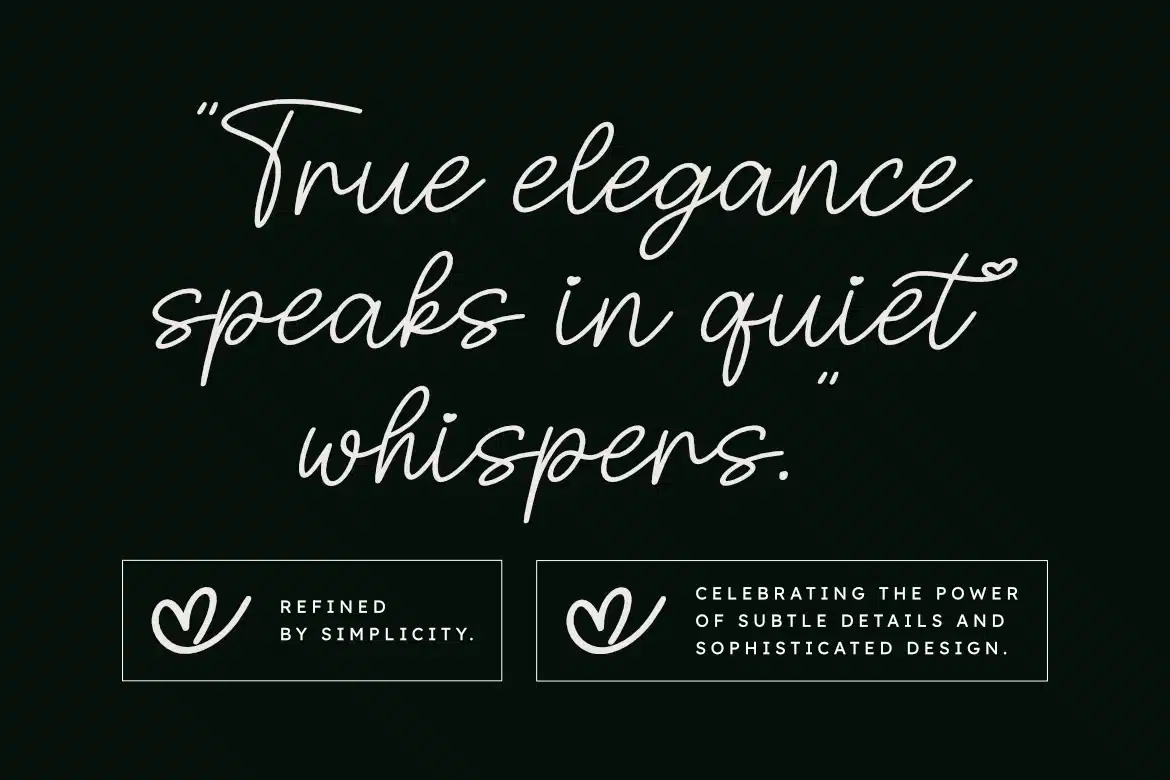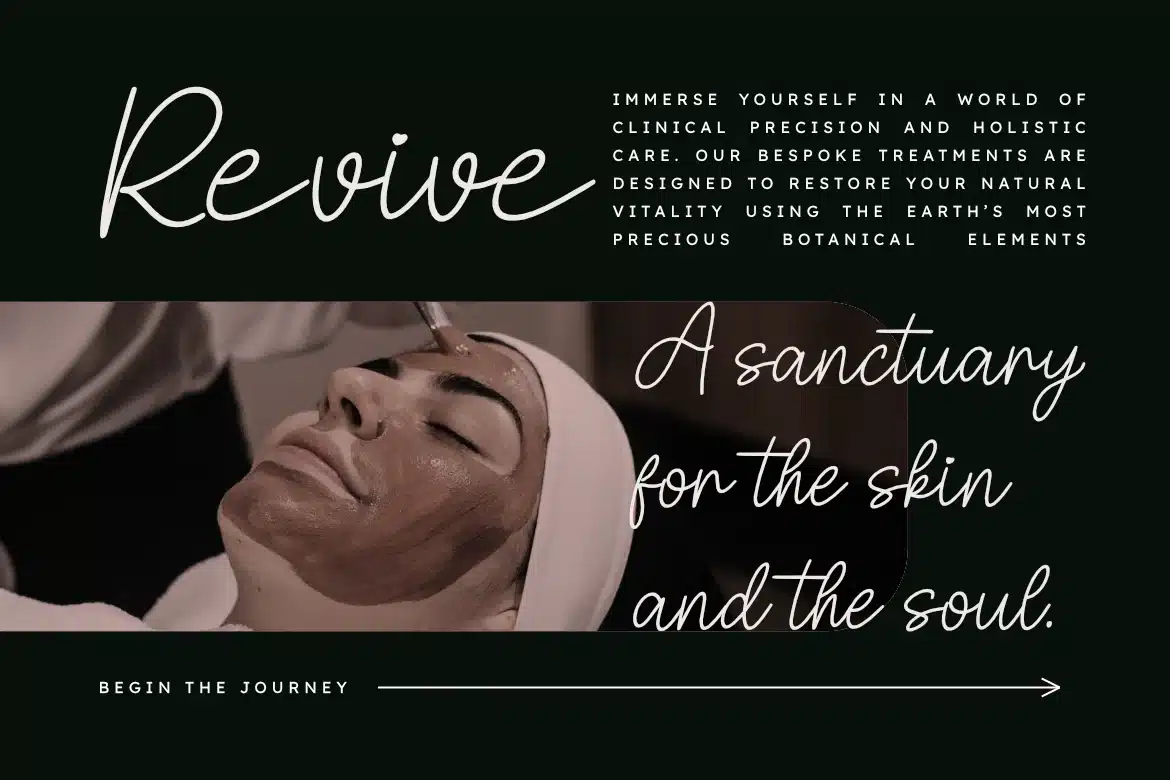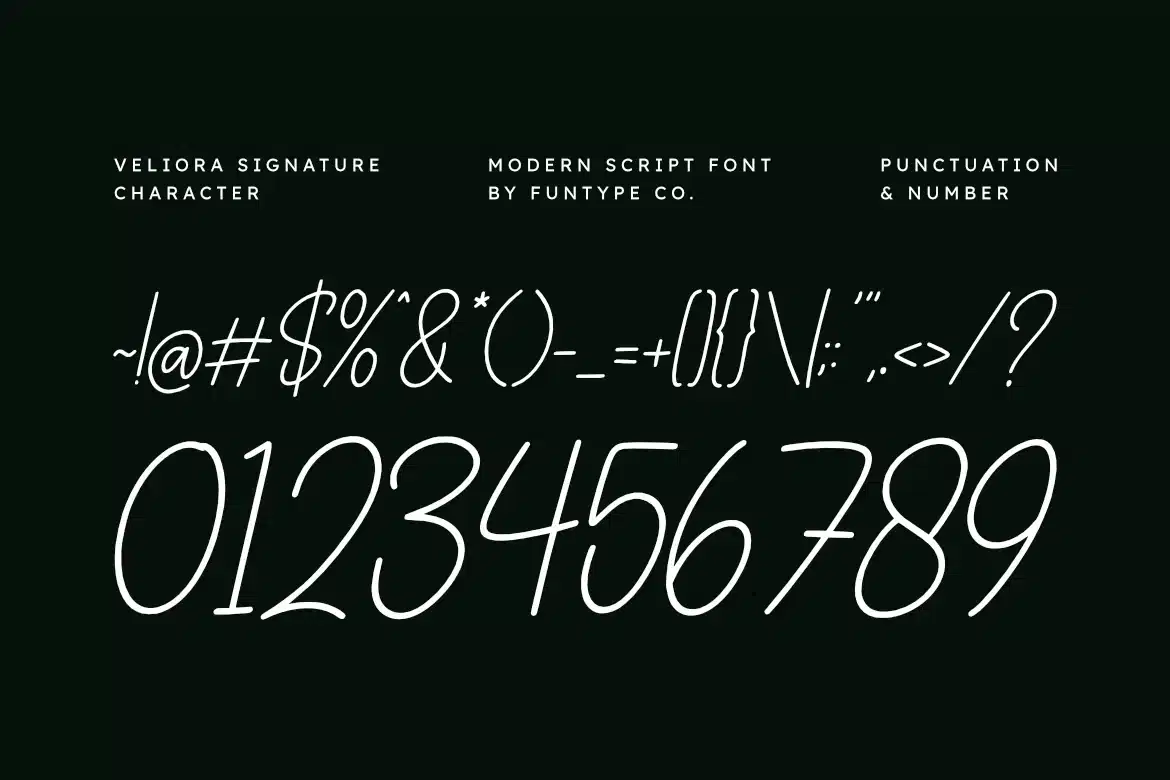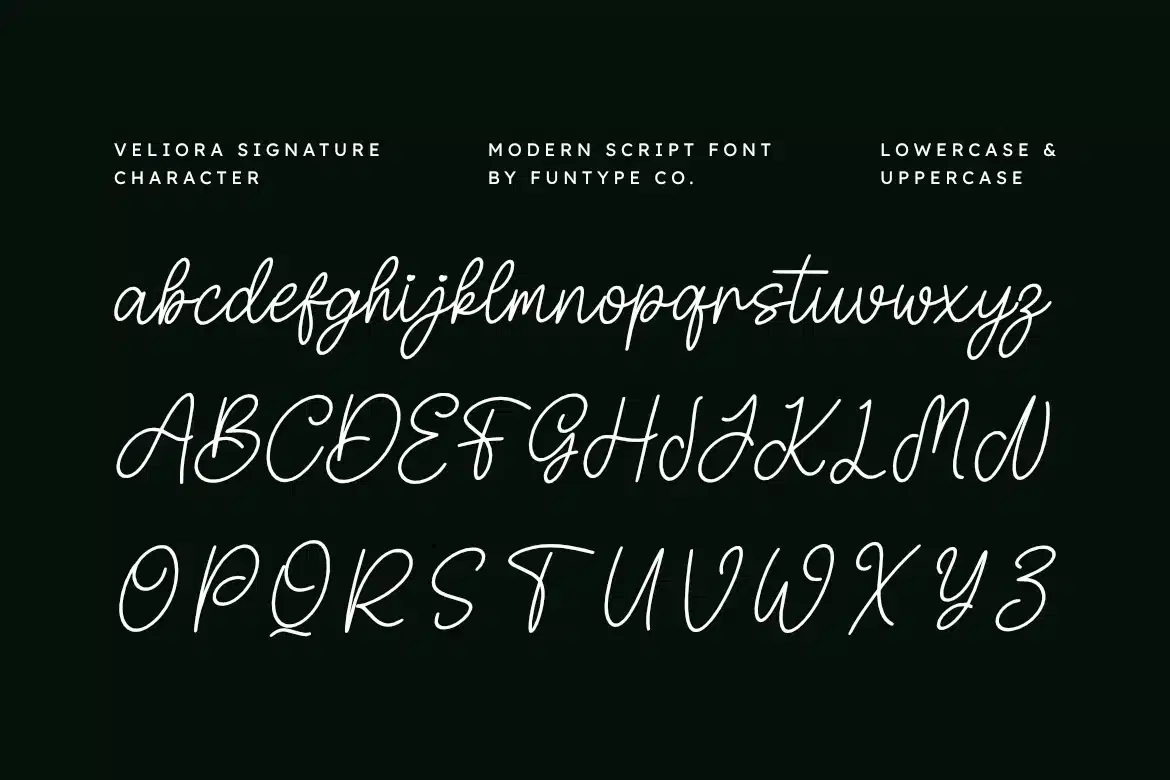
Veliora Signature – Modern Script Font
Veliora Signature is a sophisticated and clean modern script font, thoughtfully designed to capture the essence of contemporary elegance and romantic storytelling. With its consistent monoline weight and natural, flowing strokes, Veliora Signature offers a bespoke aesthetic that brings a touch of effortless grace to any creative project.
This font is the ideal choice for designers looking to add a professional yet heartfelt touch to their work. Whether you are crafting delicate wedding stationery, a chic lifestyle logo, or elegant editorial layouts, Veliora Signature provides a seamless blend of contemporary flair and timeless simplicity.
Main Features:
- Clean and Modern Script Design: Optimized for a high-end, professional look.
- Romantic Heart Accents: Unique detailing for an authentic signature feel.
- Refined Letterforms: Meticulously crafted for high legibility in branding.
- Multilingual Support: Ready for global design projects.
Best Used For:
Wedding invitations, photography watermarks, luxury boutique logos, elegant social media quotes, lifestyle magazine headers, and sophisticated product packaging.